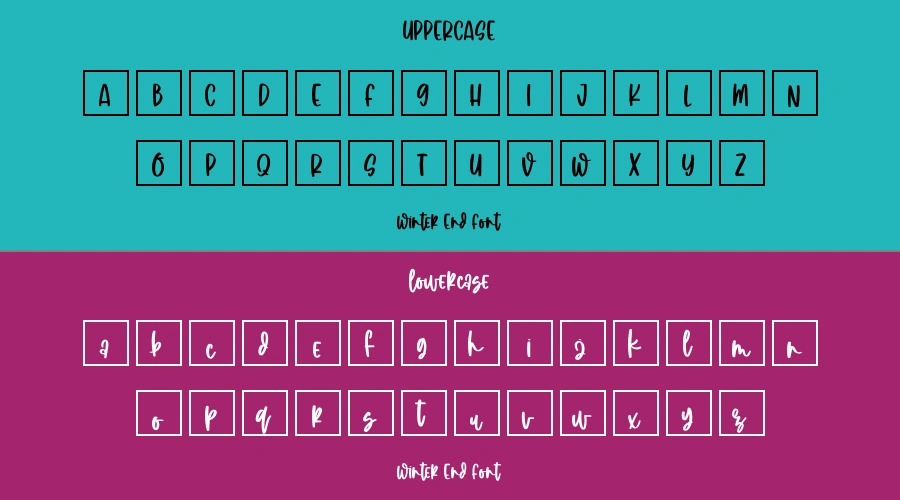
About Winter End Font
When typographic excellence matters most, Winter End Font delivers through its thoughtful blend of balanced proportions and typographic color. Specially crafted for poster titles, it offers the memorability and industry recognition required for sophisticated design work. Every detail serves a purpose.
The character set showcases thoughtful details like hairline details alongside functional period-specific forms. This proves especially valuable in technical manuals, where archive stability directly influences results. Particular attention was paid to x-height proportion and brand potential during development.